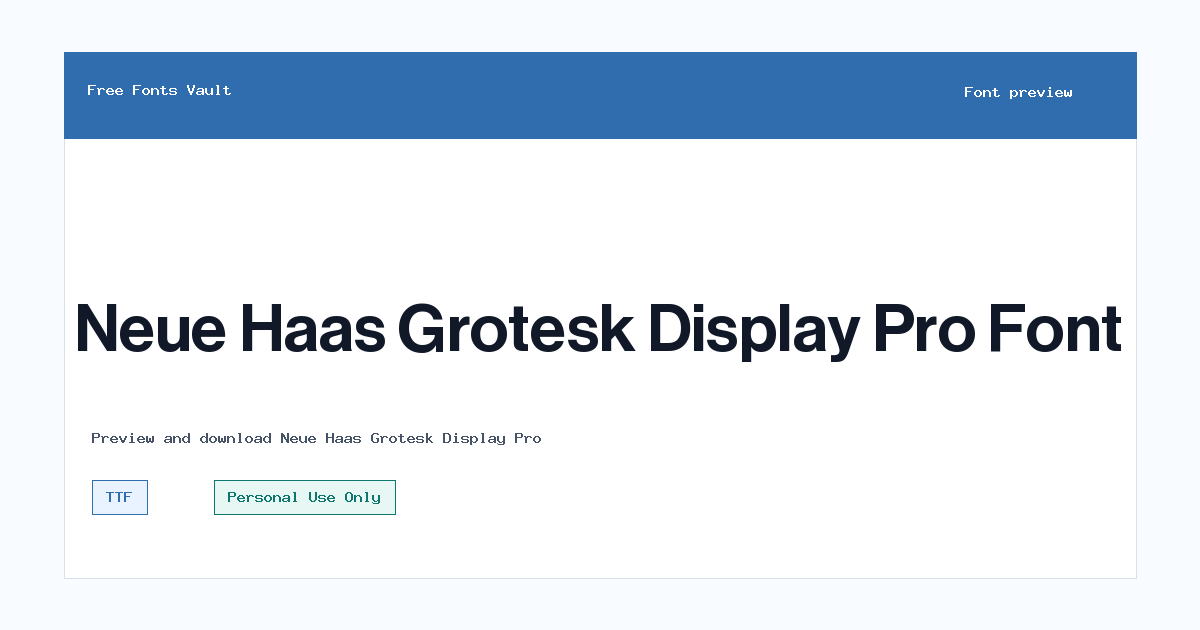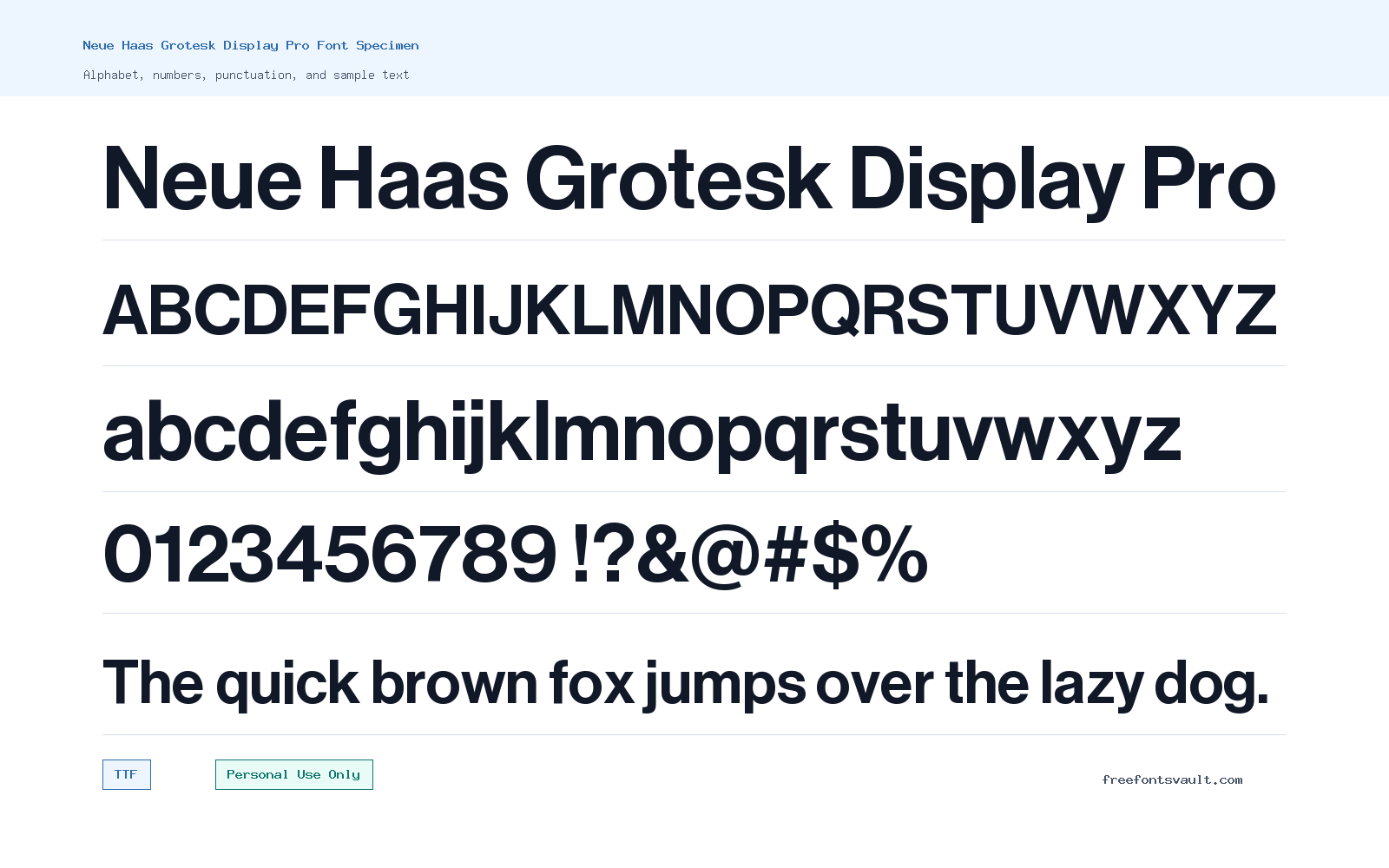
Neue Haas Grotesk Display Pro
Neue Haas Grotesk Display Pro font preview showing the family name
Neue Haas Grotesk Display Pro font specimen showing alphabet, numbers, and sample text
Neue Haas Grotesk Display Pro is a clean grotesk display typeface with a neutral, modern feel. It works best when you want lettering that feels direct, structured, and easy to scan in larger text.
About Neue Haas Grotesk Display Pro
Neue Haas Grotesk Display Pro is associated with Commercial Type and credited to Christian Schwartz after Max Miedinger. The name points to a display cut, so it is best approached as a font for larger settings rather than long paragraphs. Its plain grotesk style makes it useful when the design needs a calm voice instead of decorative lettering.
• Grotesk display style with a clean, neutral appearance
• Works well for short, structured text such as headings and labels
• Less suited to long reading blocks than a dedicated text face
• Headlines and display typography
• Posters, covers, and editorial titles
• Brand-style mockups and presentation layouts
• Navigation labels, short UI text, and clean graphic compositions
The font is credited to Christian Schwartz after Max Miedinger, with Commercial Type listed as the foundry.
Start by testing the font in short phrases at headline sizes. If the design uses long paragraphs, pair it with a readable text serif or text sans and keep Neue Haas Grotesk Display Pro for titles, labels, and display moments.
What is Neue Haas Grotesk Display Pro best used for?
It is best for short display text such as headlines, posters, covers, labels, and clean layout mockups.